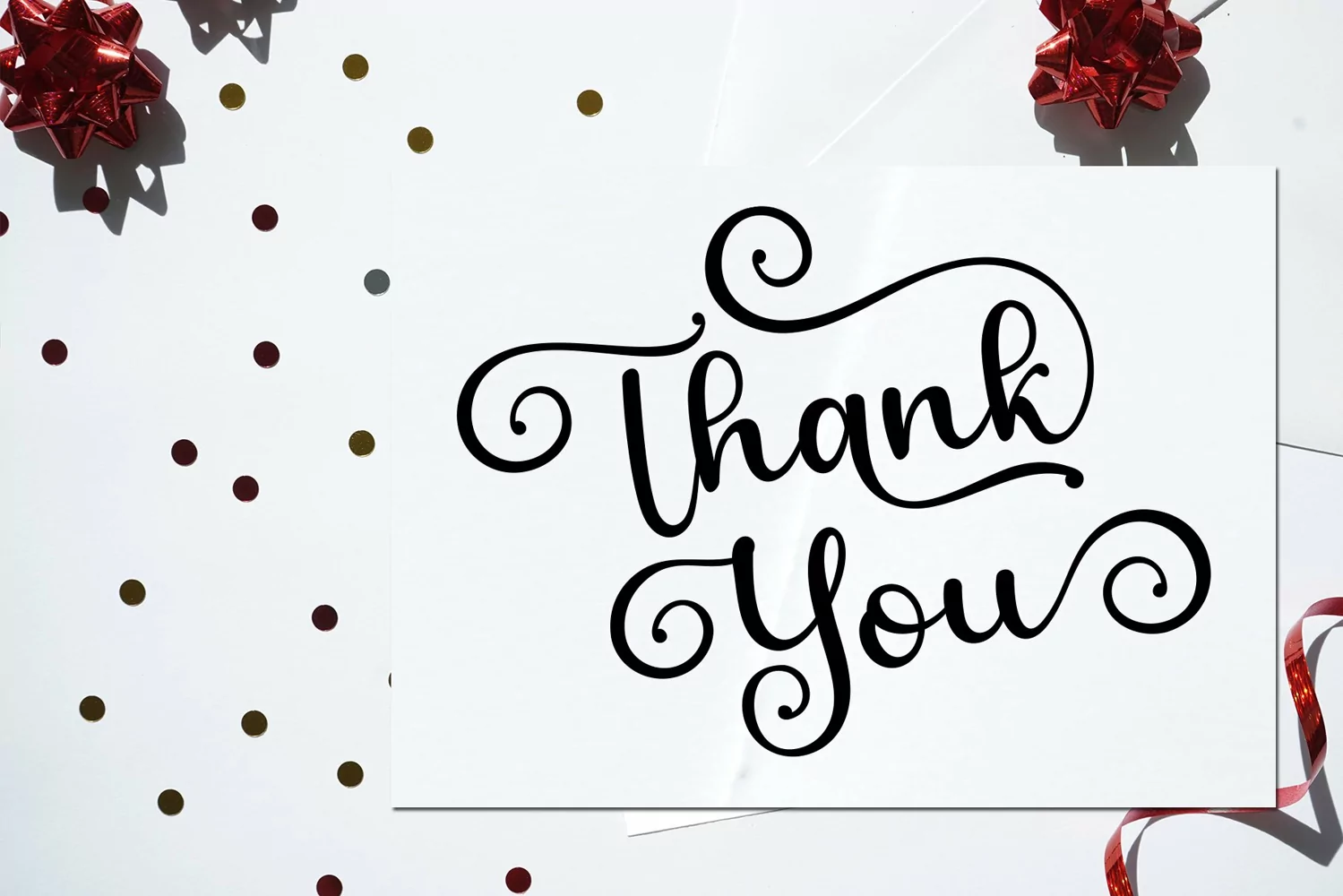
Fateya is a handcrafted script font amazing typeface that we created in freestyle for those of you doing work and crafts. This font has a total of 777 Glyphs to make it easier for you to choose a character according to your needs.
It's perfect for all kinds of work you do with multiple purposes like logos, wedding invitations, titles, t-shirts, letterheads, signage, labels, news, posters, badges, etc.
OpenType features with alternative styles, ligatures, and multiple language support.